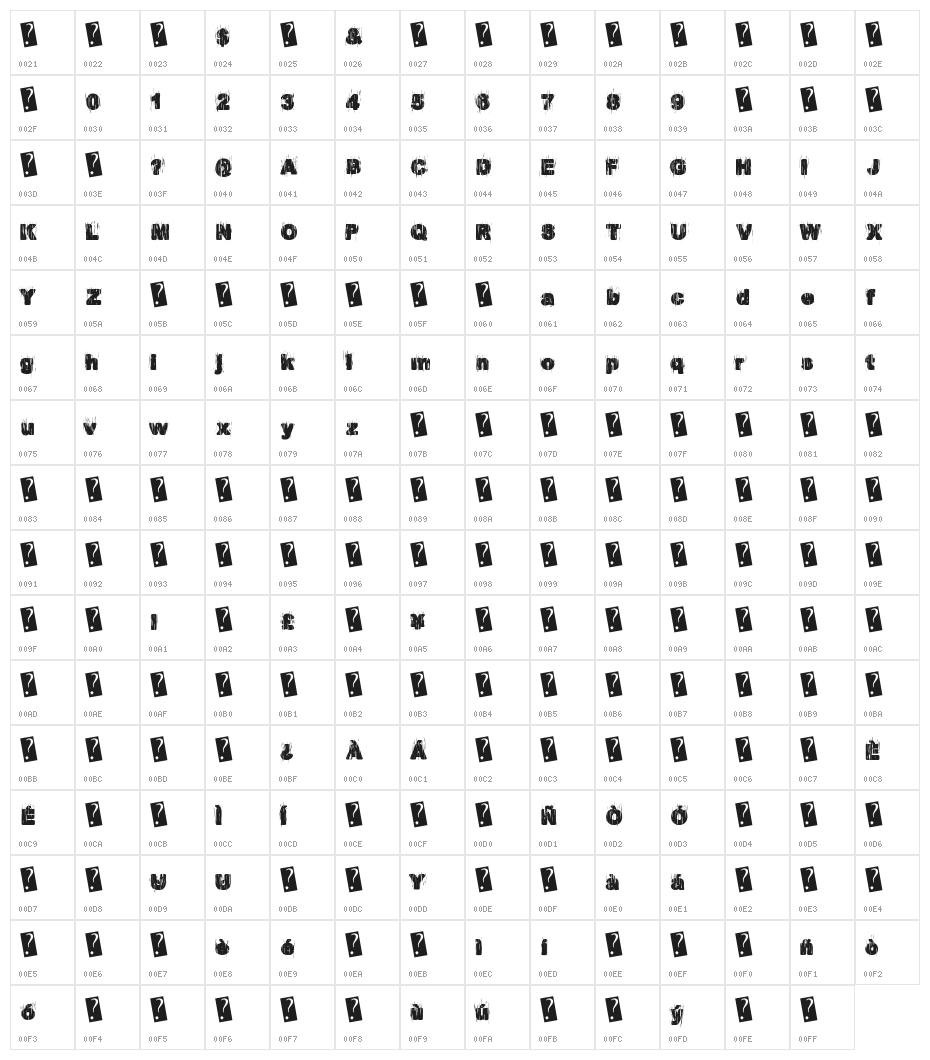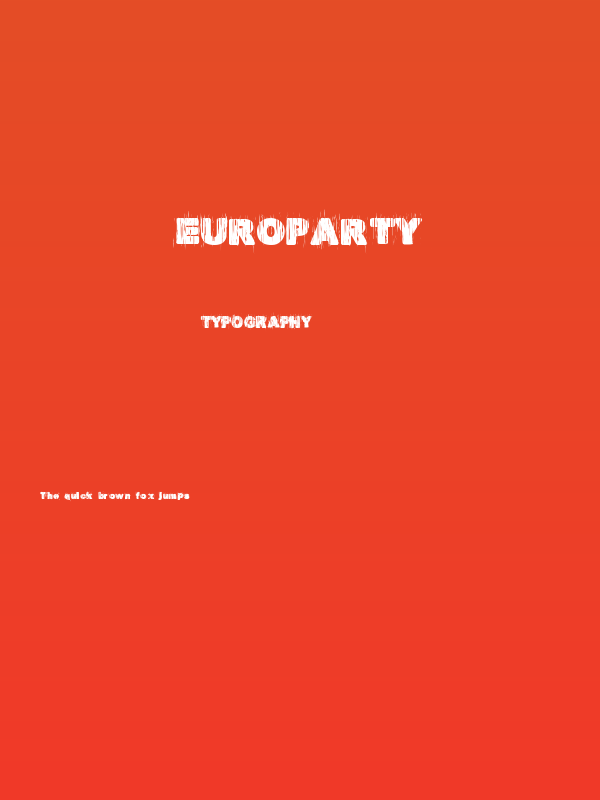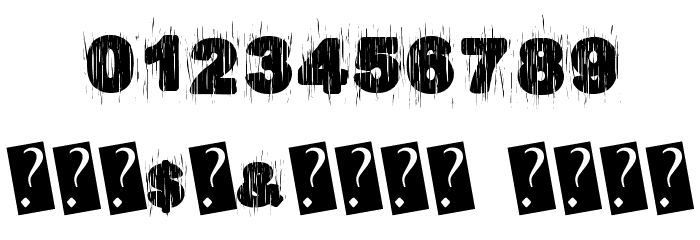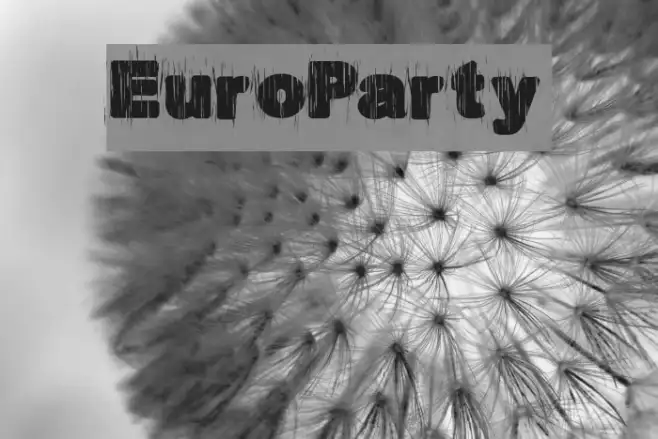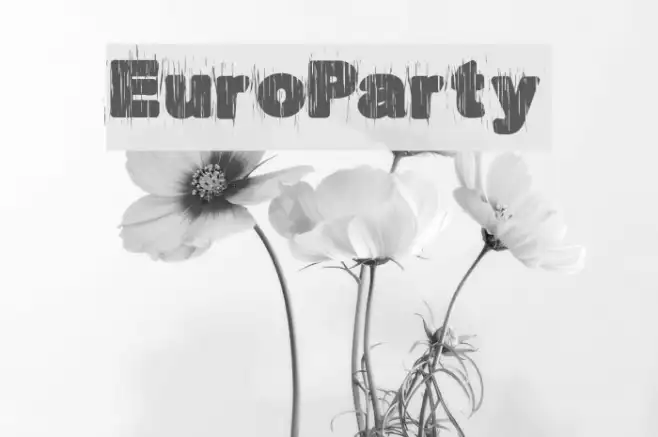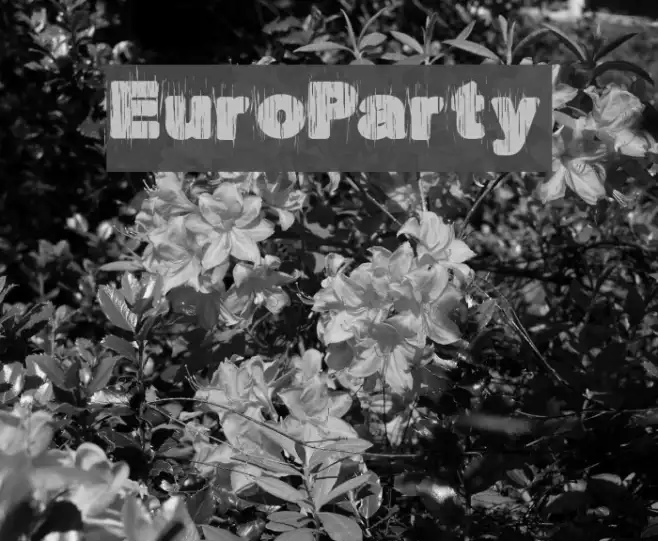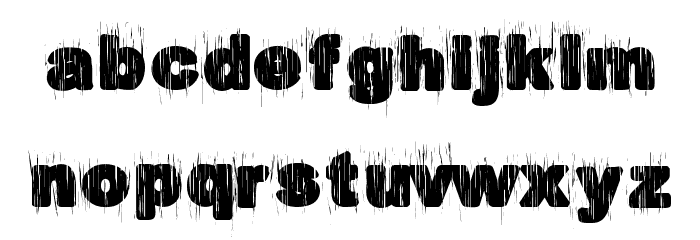
EuroParty Font
EuroParty Description
This font features a bold and distressed style, characterized by a textured, grunge appearance that gives it a unique and edgy look. The uppercase and lowercase letters, as well as the numbers, are all designed with a heavy weight, making them stand out prominently. The irregular, scratchy texture adds a sense of movement and dynamism, making it ideal for projects that require a bold statement. The special characters maintain the same distressed aesthetic, ensuring consistency across all elements.
| Overall Style | Grunge, Edgy, Modern |
| Use Case | Headlines, Posters, Logos |
| Proposed Projects | Ideal for music album covers, event posters, urban-themed designs, and any project needing a bold, edgy look. |